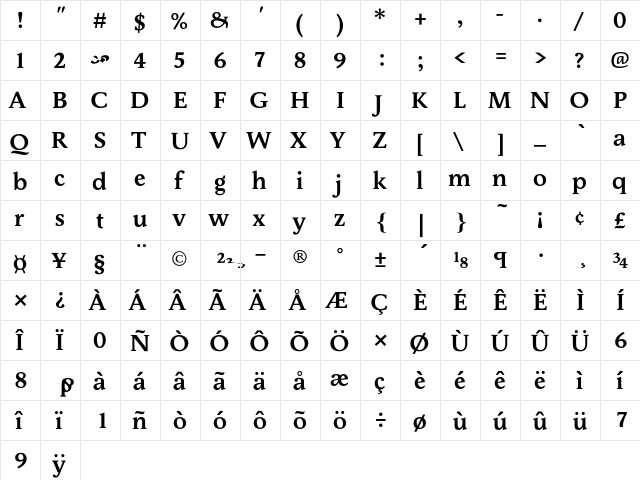
Economist101 Demi
Design Context for Economist101 Typeface
Economist101 takes a measured approach to typography — its balanced proportions and neutral character make it a reliable workhorse for both digital and print work.